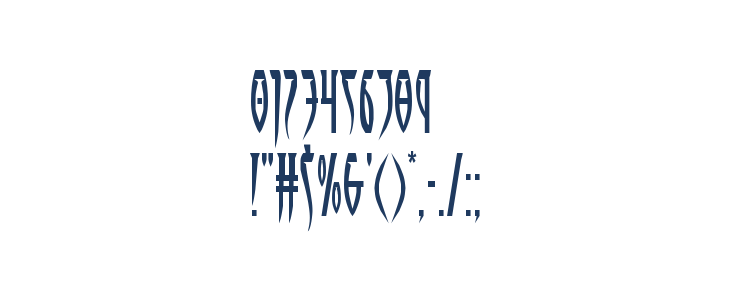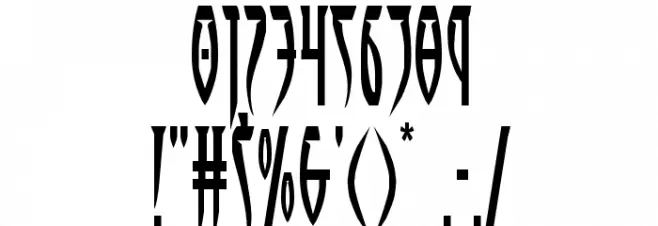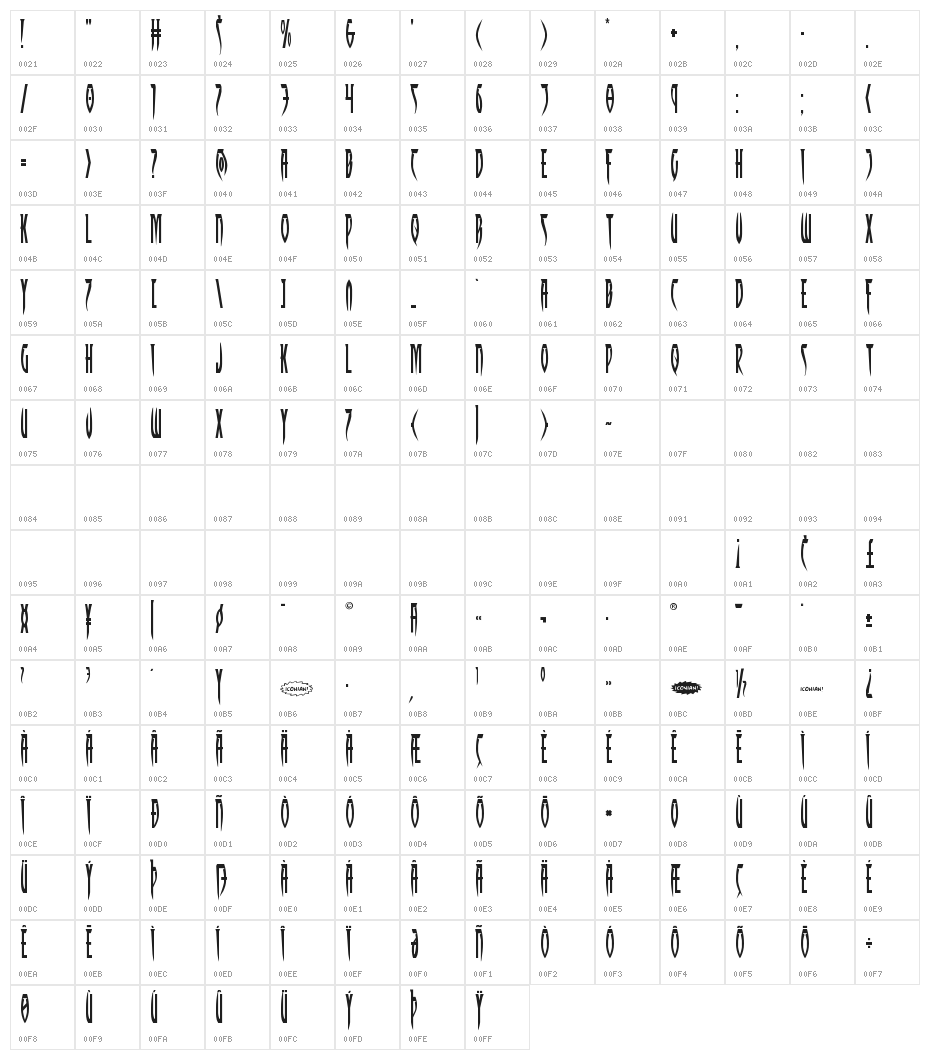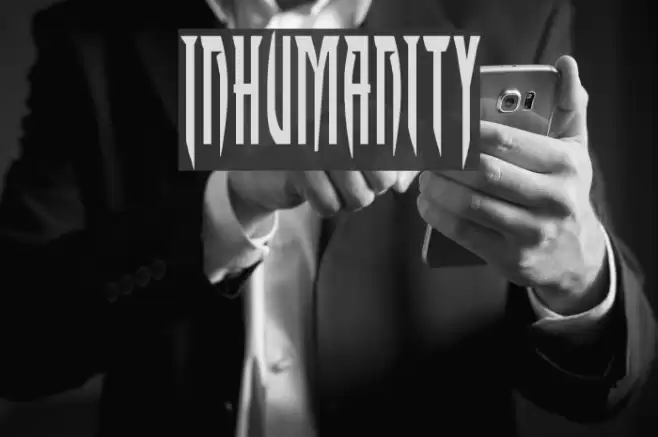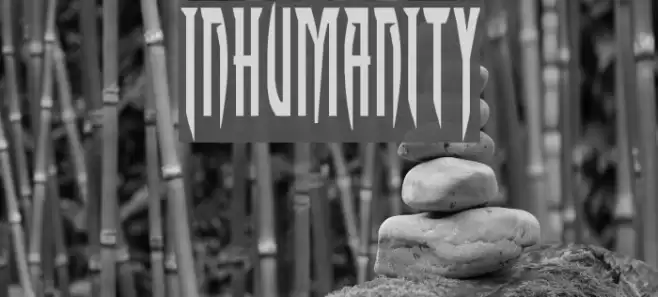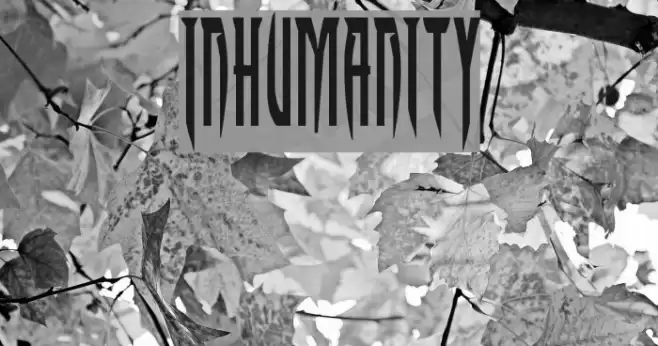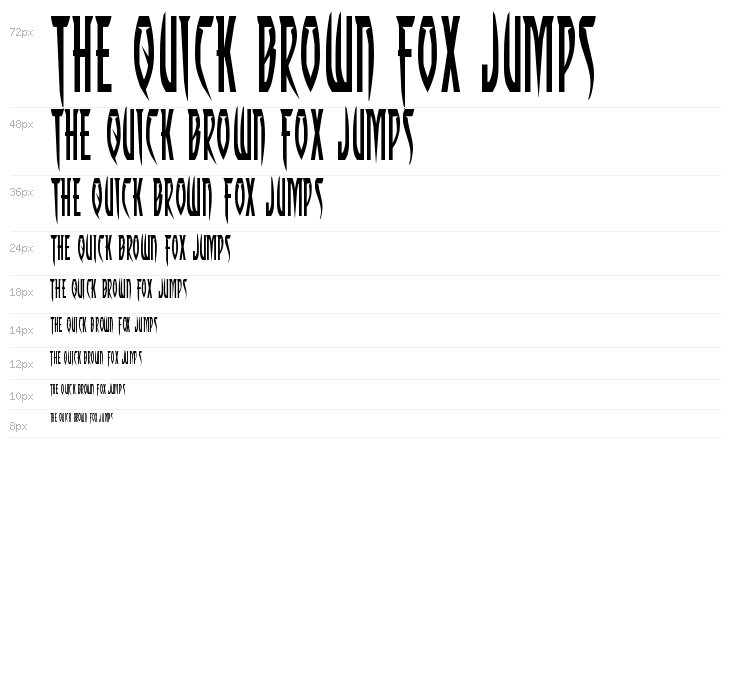
Inhumanity Font
Inhumanity Description
This font features a striking, angular design with elongated vertical strokes and sharp, pointed serifs. The letters are tall and narrow, creating a dramatic and imposing appearance. The uppercase and lowercase characters maintain a consistent style, with a unique flair in the curves and angles that give the font a distinct, edgy look. The numerals and special characters follow the same design principles, ensuring a cohesive visual identity. This font is ideal for projects that require a bold and attention-grabbing typeface.
| Proposed Projects | Perfect for posters, album covers, video game titles, and branding that requires a bold statement. |